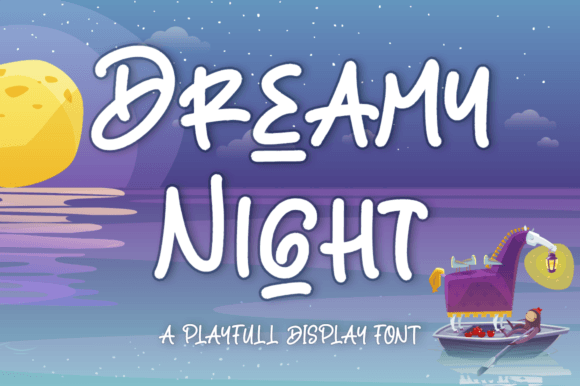
Get ready to elevate your designs with Dreamy Night Font, the stylish and whimsical handwritten font that will ignite your creativity! Picture this: your credit card numbers transformed into alluring works of art, your quotes blooming with personality, and your posters leaping off the page with playful charm.
Dreamy Night Font is not just a collection of characters; it's a gateway to a realm of endless possibilities. Create enchanting labels that captivate your customers, design posters that ignite imaginations, and craft greeting cards that deliver heartfelt messages in a captivating new style. The possibilities are as boundless as your own imagination!
Whether you're a seasoned designer or just starting your creative journey, Dreamy Night Font empowers you to express yourself in ways you never thought possible. Its versatility knows no bounds, making it the perfect choice for a myriad of projects.
Indulge in the magic of Dreamy Night Font today and watch your designs soar to new heights of creativity and allure!